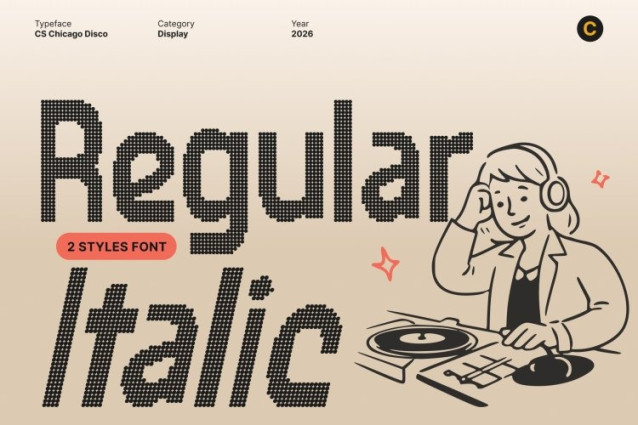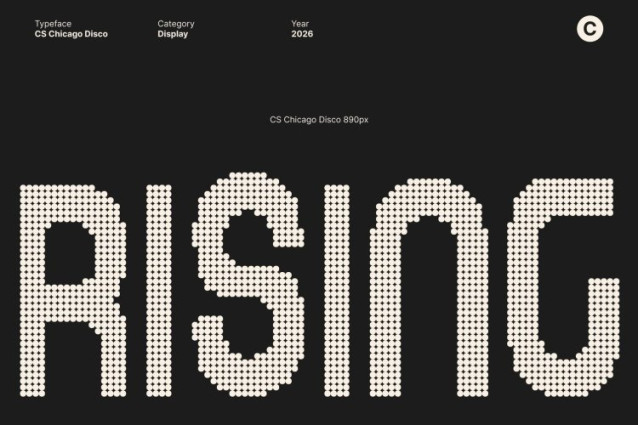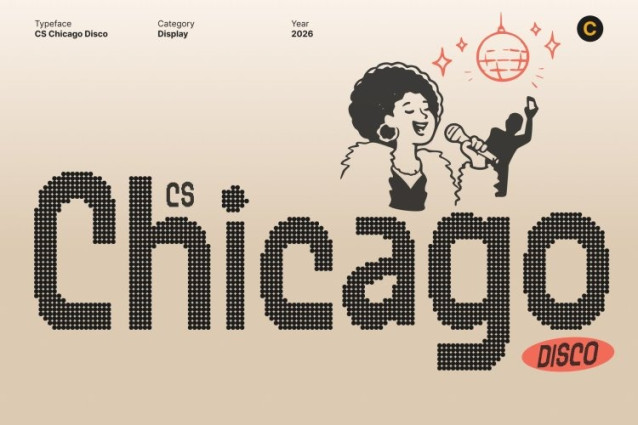
CS Chicago Disco Font
CS Chicago Disco Font This is an edgy, modern display sans serif font that fuses sleek contemporary design with the rhythmic spirit of retro disco culture. Inspired by techno music, digital-era graphics, and neon-lit nightlife, this font delivers a sharp, dynamic presence that feels futuristic, stylish, and confidently timeless.
Techno Geometry with Retro Soul
Built on bold geometric forms and smooth, flowing shapes, this font balances precision with movement. Subtle retro undertones add warmth and character, while the techno-inspired structure brings clarity and power creating a visual rhythm that bridges past and future seamlessly.
Designed for High-Impact Branding and Visual Statements
Perfect for branding, logos, posters, event visuals, and digital campaigns, this font thrives in designs that demand attention. Its commanding form and energetic personality make it ideal for tech startups, music festivals, nightlife promotions, and creative studios looking to stand out.
Stylish, Bold, and Electrically Modern
This font isn’t just a typeface it’s a visual beat. With its fusion of modern precision and retro confidence, it captures the pulse of contemporary creativity. Use it to bring futuristic style, nostalgic attitude, and disco-driven energy to your designs.